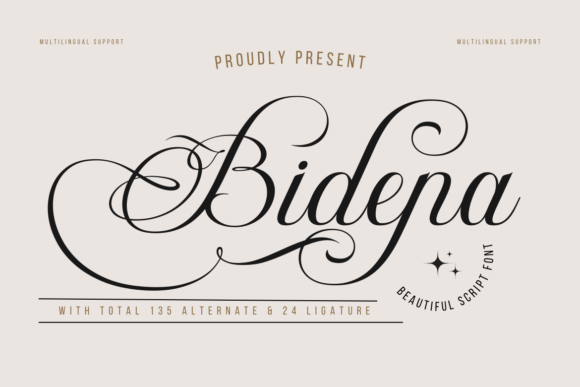
Introducing Bidena, the enchanting script font that will captivate your audience and leave them spellbound. Its exquisite curves and intricate details dance across the page, creating a visual symphony that is both elegant and sophisticated. Bidena is the perfect choice for those seeking to add a touch of luxury and refinement to their designs.
With its timeless charm and undeniable beauty, Bidena elevates your creations to new heights. Whether you're crafting logos, invitations, social media graphics, or any other design project, Bidena adds an aura of elegance and sophistication that is sure to make a lasting impression. Its flowing lines and delicate flourishes evoke a sense of romance and whimsy, perfect for capturing the hearts of your audience.
Bidena is not just a font; it's an experience. Its every curve and stroke has been carefully crafted to evoke emotion and create a connection with your audience. Its versatility knows no bounds, making it the ideal choice for a wide range of projects. Whether you're designing a wedding invitation, a fashion magazine, or a corporate presentation, Bidena adds a touch of class and sophistication that is sure to impress.
With Bidena, you'll embark on a creative journey where your imagination knows no limits. Its PUA encoding opens up a world of possibilities, allowing you to effortlessly access a treasure trove of glyphs and ligatures. Unleash your creativity and explore the endless possibilities that await you with Bidena.